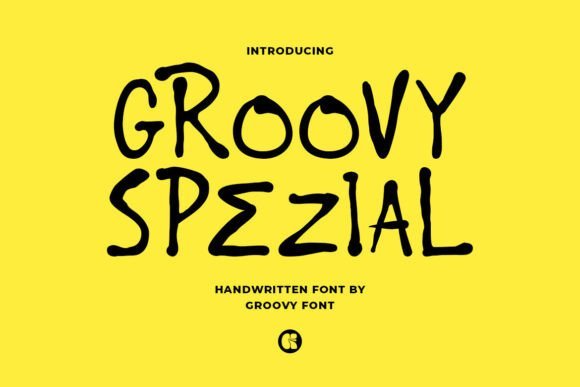
Spooky Vibes Ahead: Unleashing the Groovy Spezial Font
Have you ever been working on a design project and suddenly, the perfect font just pops into your head, setting the tone for the entire piece? That’s exactly what happened when I stumbled upon the Groovy Spezial Font. Its unique blend of spooky and handwritten elements had me hooked from the very first glance. This font is specifically designed for Halloween-themed projects, exuding a haunting and eerie vibe that’s sure to captivate your audience.
As a designer, having a versatile font like the Groovy Spezial Font in your arsenal can be a game-changer. Its personal and unique feel adds a touch of mystery and intrigue to any design, making it an ideal choice for invitations, posters, and social media graphics centered around Halloween festivities.
Whether you’re a seasoned designer or just starting out, the Groovy Spezial Font is sure to bring a touch of spooky charm to your Halloween-themed projects.
Groovy Spezial Font Key Features
- Unique Characteristics: Groovy Spezial Font features a distinctive, hand-drawn style with intricate details and a playful touch, making it ideal for creative projects that require a touch of whimsy.
- Kerning and Ligatures: Includes advanced kerning and ligature pairs to ensure smooth and professional-looking text layout, even at small font sizes.
Groovy Spezial Font Review
I recently had the chance to work with the Groovy Spezial Font, and I’m excited to share my thoughts on this quirky typeface. Here are my honest opinions on what works well and what could be improved.
- Unique flair: Groovy Spezial Font brings a groovy, psychedelic vibe to any design project, making it perfect for retro-themed or music-inspired designs.
- High-quality rendering: The font is well-rendered, with clear and sharp edges, even at larger sizes.
- Fun alternates: The font includes a range of alternates and swashes that add a playful touch to your text.
- Limited legibility: At smaller sizes, the font’s unique flair can become a liability, making it harder to read.
- No support for certain languages: Unfortunately, the font does not include support for certain languages, which may limit its usability.
Overall, I think Groovy Spezial Font is a great choice for projects that need a fun, playful touch. While it may not be the best choice for body text or formal designs, it’s perfect for headings, titles, and other design elements where you want to make a statement. Just be mindful of the limitations, and you’ll be groovin’ in no time!
Use Groovy Spezial Font for creating eye-catching headings and titles.
It’s also suitable for creating retro-style designs and graphics.
Experiment with different font sizes and colors to get the most out of this unique font.